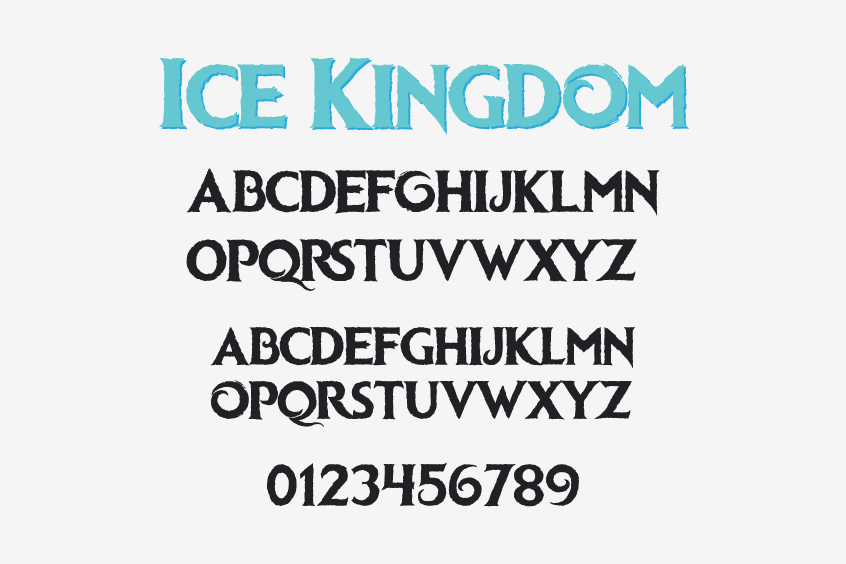
Elsa Frozen Font . Every font is free to download! Other notable charactes include prince hans, kristoff and his reindeer sven, and olaf the. This font is designed by kustren. Every font is free to download! The frozen logo on the poster is probably customized but there is a font called ice kingdom created by kustren that imitates its lettering. Click to find the best 25 free fonts in the frozen style. Click to find the best 4 free fonts in the disney frozen style. “ice kingdom bold” is the font used in the movie frozen. Frozen is a 2013 animated film about princess anna's journey to find her sister elsa, whose icy powers have trapped their kingdom in eternal winter. If you think we missed any similar font of. The font is available in all caps and it has a rather. You can use the font in your personal projects. Simply download it from the link below. We searched the web and discovered the most closest frozen similar fonts and these fonts are completely free for personal use. Looking for disney frozen fonts?
You can use the font in your personal projects. The font is available in all caps and it has a rather. Frozen is a 2013 animated film about princess anna's journey to find her sister elsa, whose icy powers have trapped their kingdom in eternal winter. Looking for disney frozen fonts? Princess elsa of arendelle and her sister anna are the central characters of the frozen movie. Other notable charactes include prince hans, kristoff and his reindeer sven, and olaf the. “ice kingdom bold” is the font used in the movie frozen. Download the free font replicating the title logo from the movie frozen and many more at the original famous fonts! If you think we missed any similar font of. What font was used in frozen logo and posters?
Elsa Frozen Font What font was used in frozen logo and posters? Click to find the best 25 free fonts in the frozen style. Frozen is a 2013 animated film about princess anna's journey to find her sister elsa, whose icy powers have trapped their kingdom in eternal winter. Click to find the best 4 free fonts in the disney frozen style. The font is available in all caps and it has a rather. “ice kingdom bold” is the font used in the movie frozen. Looking for disney frozen fonts? We searched the web and discovered the most closest frozen similar fonts and these fonts are completely free for personal use. Every font is free to download! Download the free font replicating the title logo from the movie frozen and many more at the original famous fonts! Every font is free to download! This font is designed by kustren. Other notable charactes include prince hans, kristoff and his reindeer sven, and olaf the. Princess elsa of arendelle and her sister anna are the central characters of the frozen movie. The frozen logo on the poster is probably customized but there is a font called ice kingdom created by kustren that imitates its lettering. You can use the font in your personal projects.
Frozen font download Famous Fonts Elsa Frozen Font We searched the web and discovered the most closest frozen similar fonts and these fonts are completely free for personal use. Click to find the best 4 free fonts in the disney frozen style. Frozen is a 2013 animated film about princess anna's journey to find her sister elsa, whose icy powers have trapped their kingdom in eternal winter. The. Elsa Frozen Font.
[DOWNLOAD] Free Frozen 2 Font Elsa Frozen Font Every font is free to download! Simply download it from the link below. “ice kingdom bold” is the font used in the movie frozen. Other notable charactes include prince hans, kristoff and his reindeer sven, and olaf the. We searched the web and discovered the most closest frozen similar fonts and these fonts are completely free for personal use. Princess. Elsa Frozen Font.
Frozen Font Full Alphabet Letters SVG/Dxf/PNG/EPS Instant Download by Elsa Frozen Font “ice kingdom bold” is the font used in the movie frozen. Other notable charactes include prince hans, kristoff and his reindeer sven, and olaf the. Looking for disney frozen fonts? Simply download it from the link below. Princess elsa of arendelle and her sister anna are the central characters of the frozen movie. The frozen logo on the poster is. Elsa Frozen Font.
Frozen Font Download Free Font & Logo Elsa Frozen Font Other notable charactes include prince hans, kristoff and his reindeer sven, and olaf the. If you think we missed any similar font of. “ice kingdom bold” is the font used in the movie frozen. What font was used in frozen logo and posters? You can use the font in your personal projects. We searched the web and discovered the most. Elsa Frozen Font.